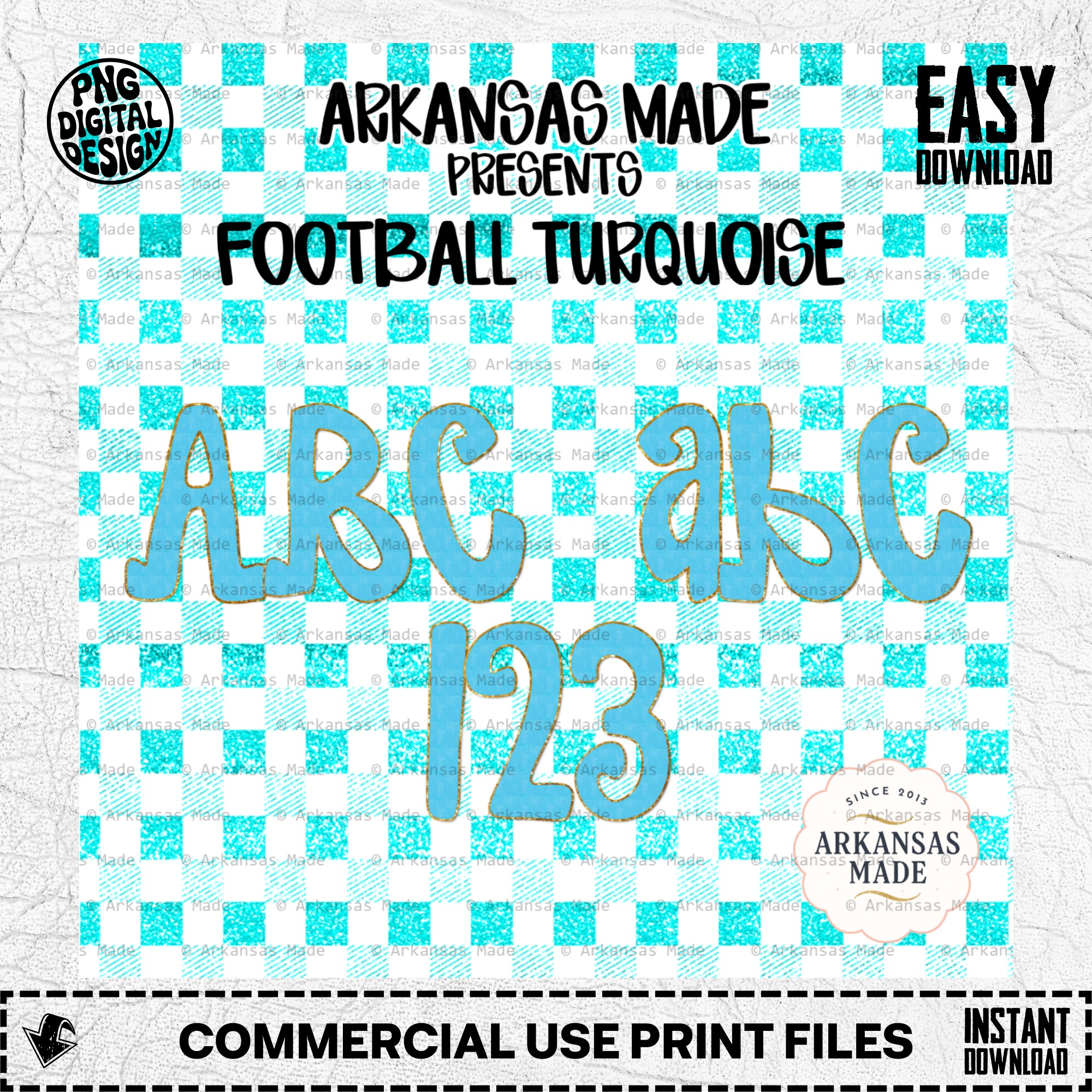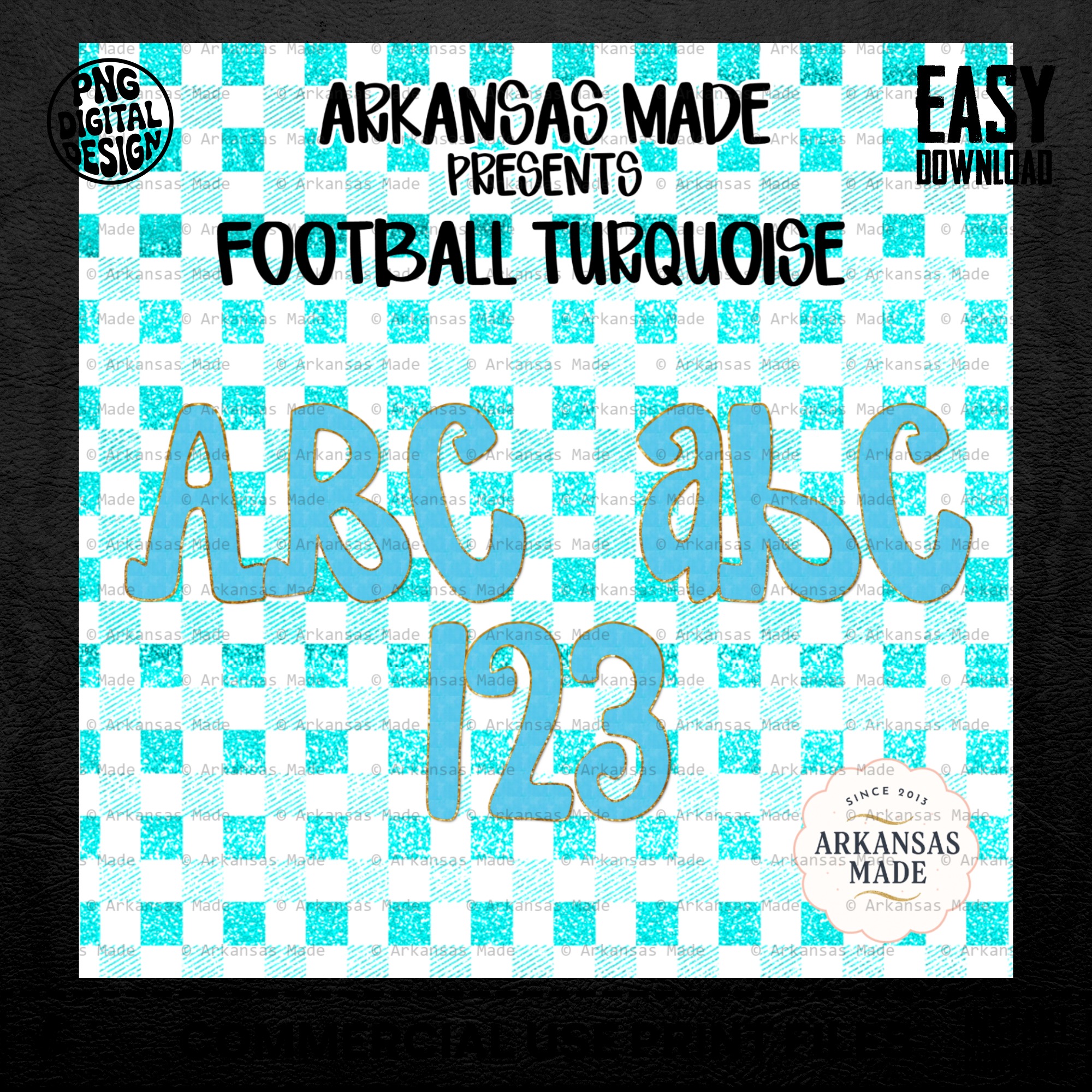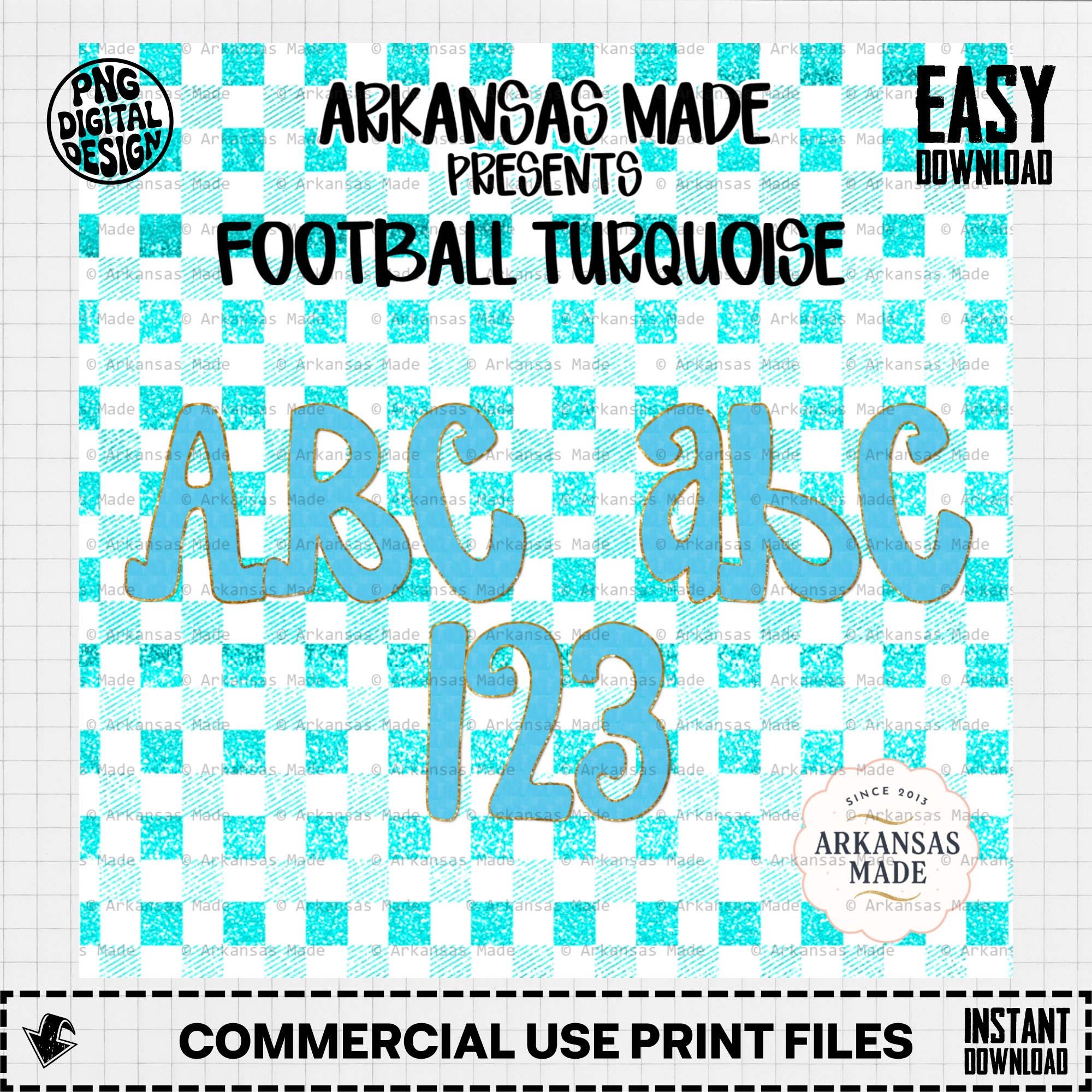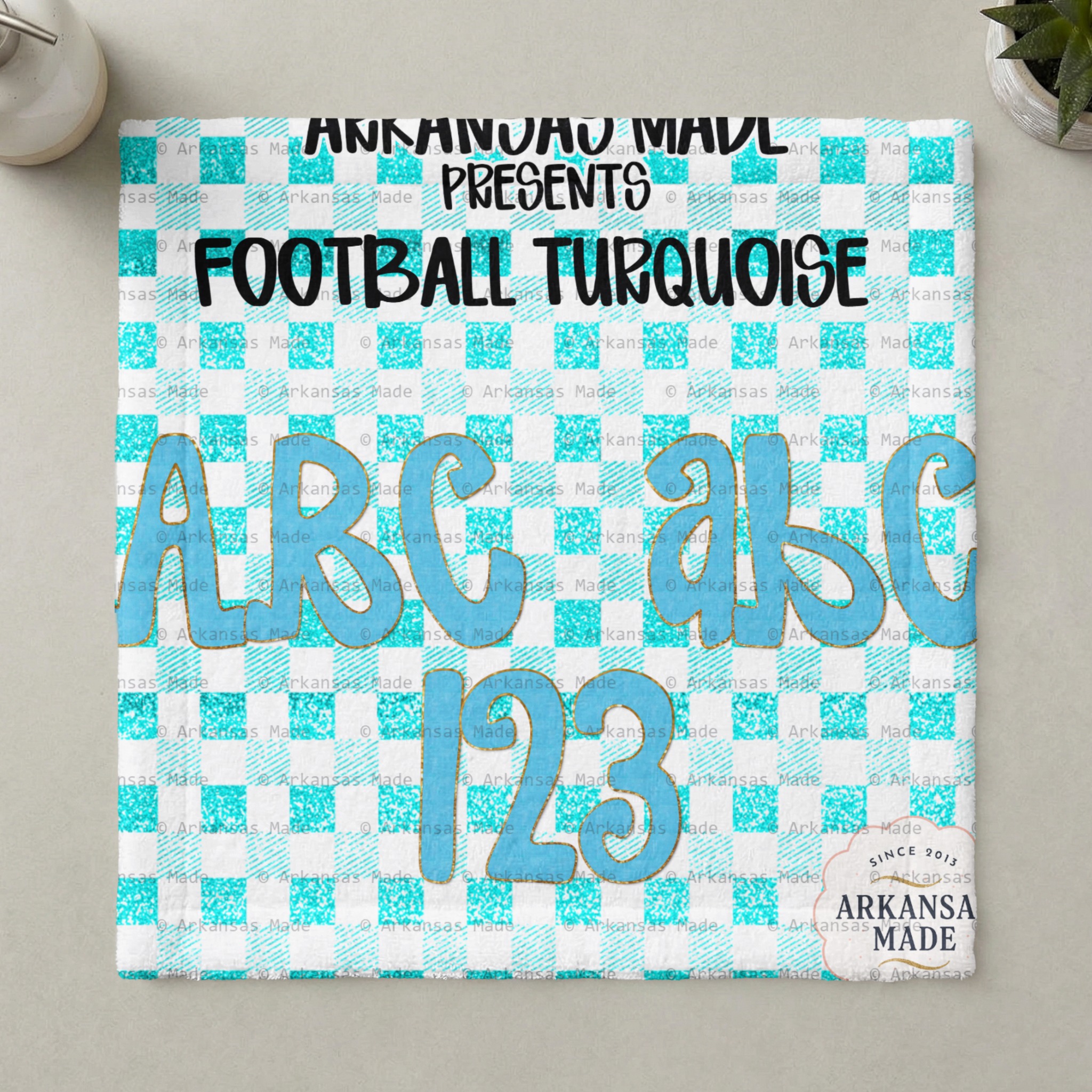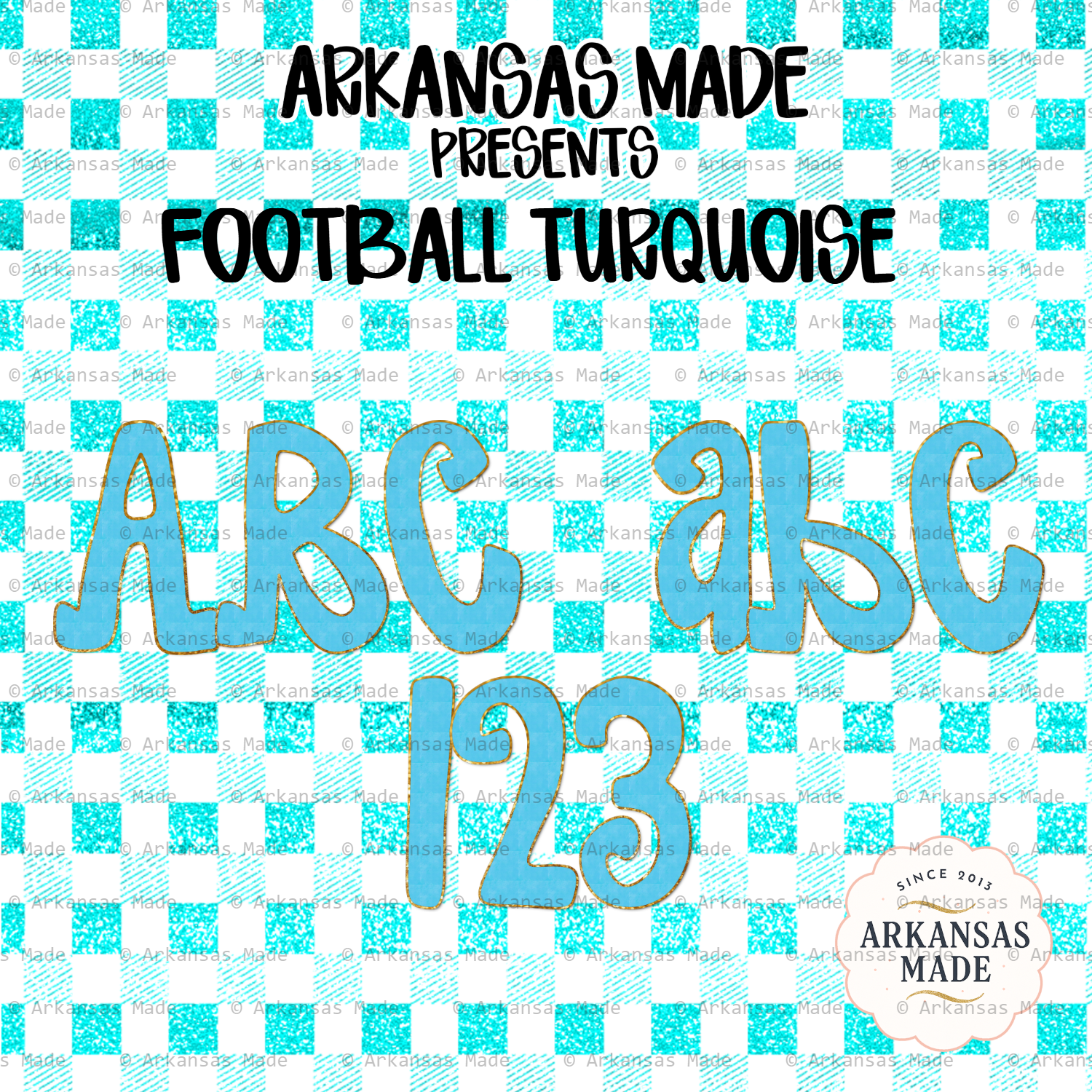
Turquoise Gold Glitter Alphabet PNG Digital Alpha PNGs, Sparkling Aqua Blue Letters Numbers Font, Commercial Use Instant Download Design
Elevate your creations with these stunning Turquoise Gold Glitter Alphabet PNG Digital Alpha PNGs, featuring sparkling letters and numbers perfect for any project. These instant download files add vibrant style to all your designs. This playful and sporty alpha set, with its faux glitter gold outline and distressed aqua blue fill, is ideal for crafters, small business owners, and DIY enthusiasts. Perfect for designing spirit wear, custom apparel, party decorations, or personalized gifts for sports fans, teachers, or new parents. Ignite your creativity with this versatile digital design pack!